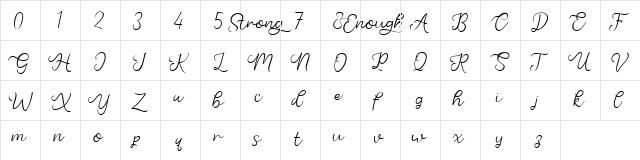
Strong Enough Regular
| Foundry | Epiclinez |
| Designer | Aldy Epiclinez |
Design Context for Strong Enough Typeface
Strong Enough is a composed and adaptable typeface that performs quietly and consistently across a wide range of design contexts.